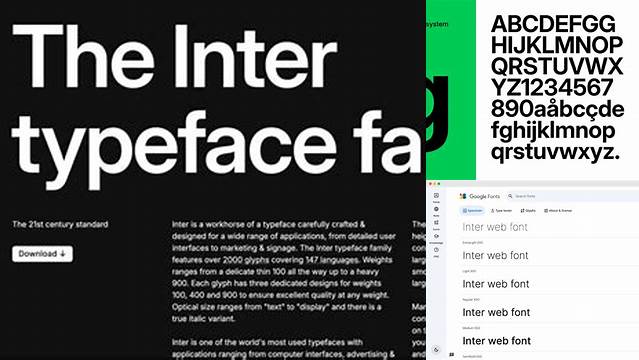
Google Fonts: Using Inter Family With CSS2
H2: Understanding the Inter Font Family
Alright, let's talk specifics. The Inter font family is designed with readability in mind, especially on screens. It's a sans-serif typeface that excels in user interfaces because of its tall x-height, which makes the letters easily distinguishable. Inter is a carefully crafted typeface designed specifically for computer screens. Its clear and legible forms make it an excellent choice for user interfaces, websites, and any digital content where readability is paramount. One of the key features of Inter is its tall x-height. This refers to the height of the lowercase letters relative to the capital letters. A taller x-height makes the text appear larger and easier to read, especially at smaller sizes. This is particularly important in UI design, where text is often displayed in compact spaces. Another notable characteristic of Inter is its clean and modern aesthetic. The letterforms are simple and uncluttered, avoiding unnecessary ornamentation. This gives the font a contemporary feel that works well with a wide range of design styles. Whether you're creating a sleek and minimalist website or a more complex application interface, Inter can seamlessly integrate into your design.
Inter also boasts excellent multi-language support. It includes a wide range of characters and glyphs, making it suitable for use in various languages. This is a significant advantage for projects targeting a global audience. Plus, Inter is open-source, meaning you can use it for free in both personal and commercial projects. This makes it an attractive option for developers and designers on a budget. The font is also continually updated and improved by its creators, ensuring it remains a high-quality and reliable choice.
parameter is important for optimizing font loading. It tells the browser to display the text using a fallback font until the Inter font is fully loaded. This helps to prevent a flash of invisible text (FOIT) and improves the user experience. Once you've imported the font, you can use it in your CSS rules like this:
In this example, we're setting the font-family
property of the body
element to Inter. The sans-serif
value is a fallback font that the browser will use if the Inter font is not available. We're also setting the font-family
and font-weight
properties of the h1
, h2
, and h3
elements to use the bold version of the Inter font.
H2: Step-by-Step Integration Guide
Okay, let's break down the integration process into simple steps:
- Find Inter on Google Fonts: Head over to the Google Fonts website and search for "Inter."
- Choose Your Styles: Select the styles you want (e.g., Regular, Bold, Italic). The more styles you pick, the larger your font file will be, so choose wisely!
- Copy the CSS
@import
Code: Google Fonts will provide you with a CSS@import
snippet. Copy this code. - Paste into Your CSS File: Paste the